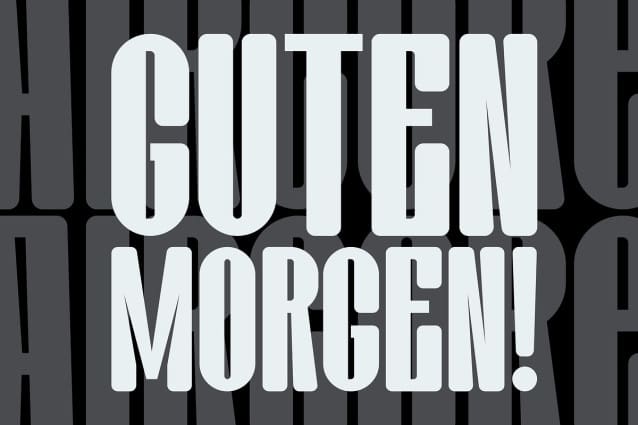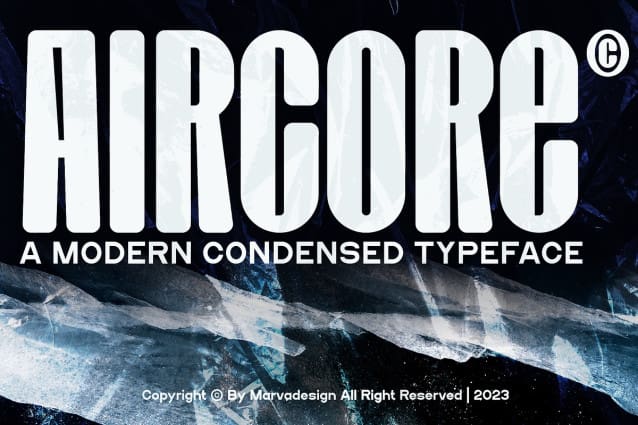
Aircore Font
Aircore Font – Modern Font is a bold and authentic display font. The font is suitable for any branding project like logo, Template Design, Product and many more. outstanding in a wide range of contexts.